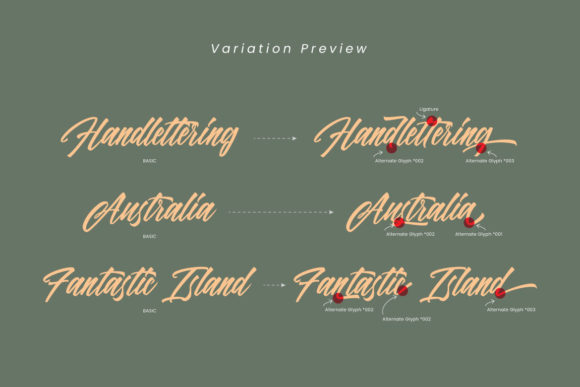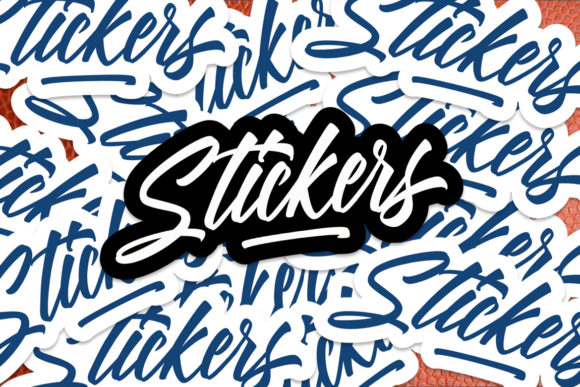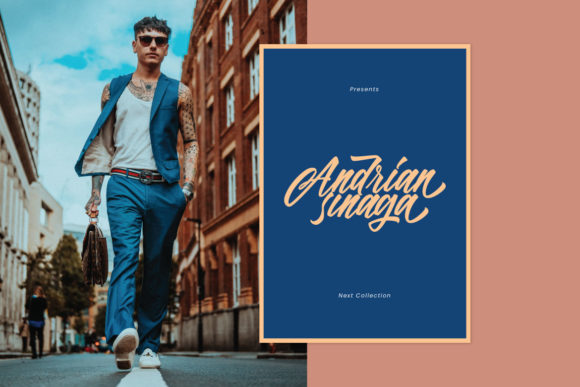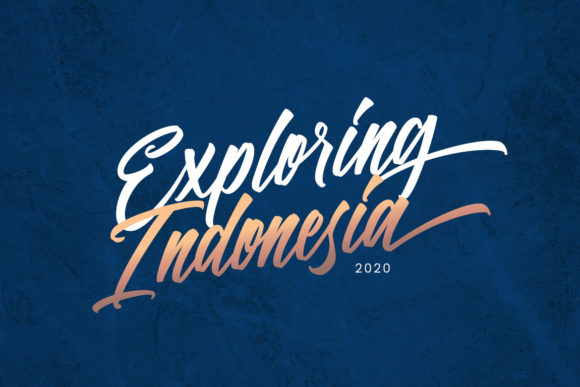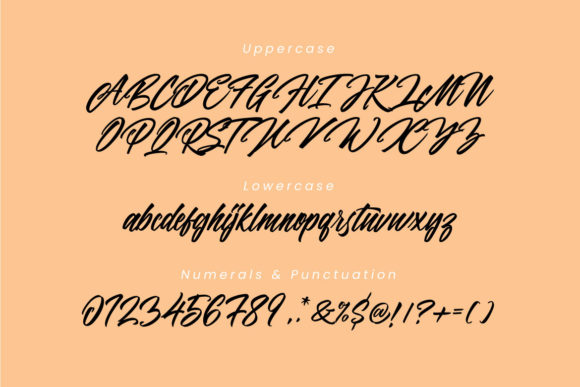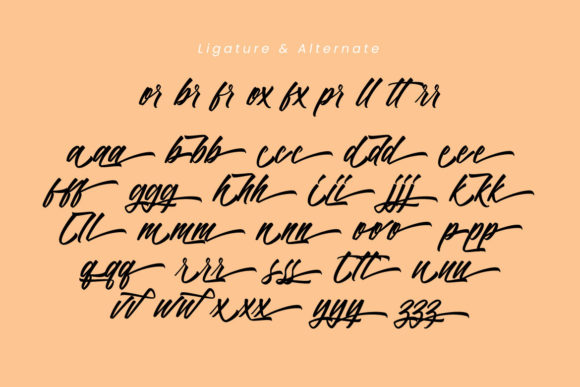
Introduction to Panbers Font Font
Fonts play a crucial role in design, and the Panbers Font font is a typeface that brings both character and versatility to any project. Whether you’re working on a branding project, a website, or a print design, the Panbers Font font offers a unique style that can elevate your work.
Panbers is a cute and modern handwritten font with an incredibly friendly feel.
Whether itβs for web, print, moving images or anything else- Panbers will look spectacular .
Key Features of Panbers Font Font
Why Choose Panbers Font Font?
The Panbers Font font is more than just a typeface β it’s a design tool that helps you communicate your message with style and clarity. Its unique character set and versatile design make it suitable for a wide range of applications, from elegant invitations to bold headlines.
With its carefully crafted letterforms and balanced proportions, the Panbers Font font ensures readability and visual appeal across all mediums.
What makes Panbers Font font special?
The Panbers Font font stands out with its unique design, exceptional readability, and versatility across various design applications.